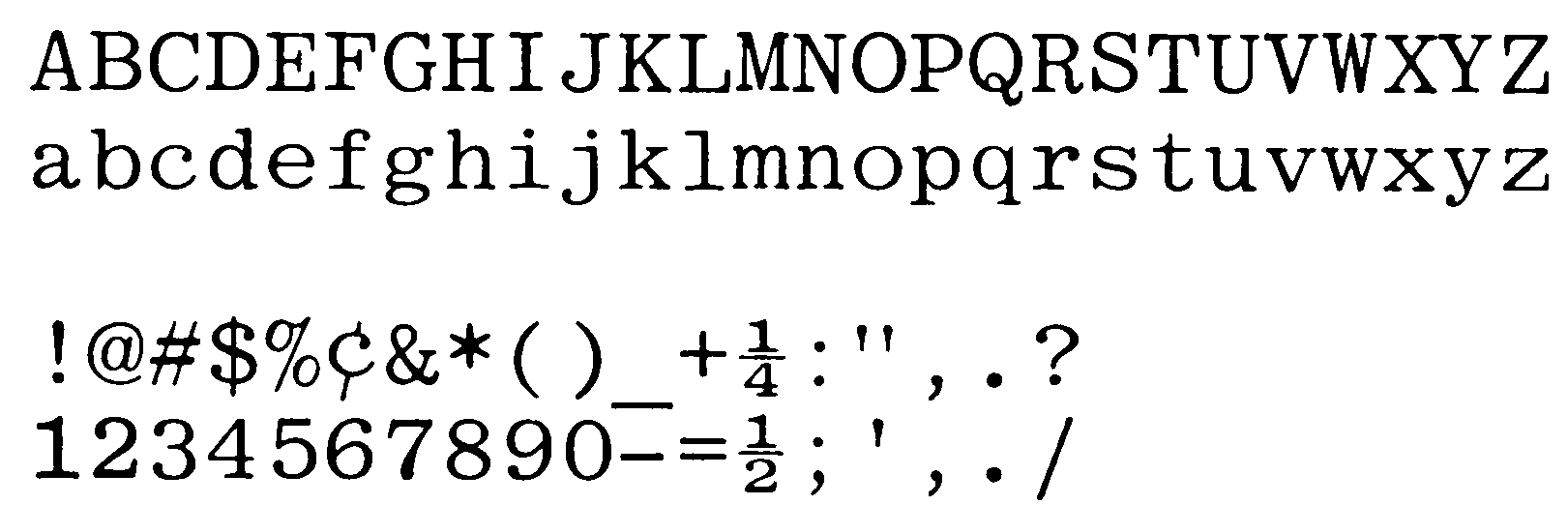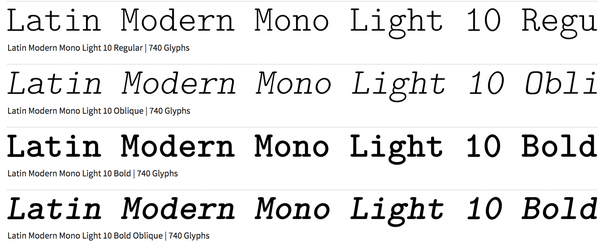
Bohemian typewriter by lukas krakora. Google docs typewriter fonts today, i am intending to talk about google docs typewriter fonts.
92 Inspiration Typewriter Fonts Google For Logo Design, Every font is free to download! Jmh typewriter by jorge morón.
Google docs typewriter fonts if, like me, you’ve been utilizing google slides and microsoft powerpoint, […] Imitate older times in your texts with our typewriter fonts for sober and clear works. To kick things off, we have postmark typewriter, a rugged font that looks like it was spat out from the oldest typewriter you can find. This light weight typewriter font is beautiful and classical.
typewrier font photo Google Search Fonts Pinterest Typewriters This font offers that traditional typewriter font aesthetic, with its slab serif design and uneven lines on its characters for that fresh ink effect.
With its bold lettering and elegant curves, abril fatface is a serif inspired by the tilting fonts popularized in british and french ads and posters from the 19th century. Get tips on what to look for when choosing fonts for your next elearning development project. Looking for old typewriter fonts? Typewriter is a classic mechanical typewriter font.
Type the way you want get your message across in. Legend of the giant penguin sea by cumberland fontworks. See 5 popular free google fonts. There you can sort and select the fonts you want to use in your document. Old typewriter font.
Jmh typewriter by jorge morón. To use a font in the extensis list, you first need to type your text, then select it. 172,546 downloads (101 yesterday) free for personal use. There you can sort and select the fonts you want to use in your document. Free typewriter fonts.
This font is perfect to create custom stamps, coffeetable books, invitations and many more. The casual look perfectly fits the vintage yard sale poster template. Bohemian typewriter by lukas krakora. This series looks at what google fonts is, and shares interesting examples and combinations of fonts that can take your project to the next level. Old Typewriter Font.
Hand typewriter € by imagex. Google input tools remembers your corrections and maintains a custom dictionary for new or uncommon words and names. Print fonts were designed for—you guessed it—printed materials. Click to find the best 31 free fonts in the old typewriter style. Google Tip Adding additional fonts to Google Docs SimCloud.
Hand typewriter € by imagex. The extnesis fonts font manager opens to the right of your document. 1001 free fonts offers the best selection of typewriter fonts for windows and macintosh. To kick things off, we have postmark typewriter, a rugged font that looks like it was spat out from the oldest typewriter you can find. What are the Typewriter Fonts & Typefaces? Mr & Mrs Vintage Typewriters.
Download ltc remington typewriter pro set from myfonts.com (opens in new tab) ltc remington typewriter pro is a beautiful classic lightweight typewriter font with a hint of class and unconventional characteristics in the letterforms. Kingsthings trypewriter recreates the uneven look of real typewriter text with an uneven baseline and slightly skewed letters. To kick things off, we have postmark typewriter, a rugged font that looks like it was spat out from the oldest typewriter you can find. 70+ best free and premium typewriter fonts. rusted typewriter font Google Search in 2020 Free font, Font.
This font is free for personal use. There are many scenarios where multiple weights—if not multiple styles—are not just desired, but essential. The extnesis fonts font manager opens to the right of your document. This series looks at what google fonts is, and shares interesting examples and combinations of fonts that can take your project to the next level. IBM Selectric and Selectric II Type Fonts.
Kingsthings trypewriter recreates the uneven look of real typewriter text with an uneven baseline and slightly skewed letters. Print fonts were designed for—you guessed it—printed materials. Would love to get it. The font was constructed 100% by hand. How to Change the Fonts of a Website and Preview Online.
Jmh typewriter by jorge morón. This font would be best suited for more creative designs; The uneven lettering is too casual for a more corporate design. Looking for old typewriter fonts? typewriter Threads Forum Tags.
Typewriter is a classic mechanical typewriter font. 172,667 downloads (121 yesterday) free for personal use. Zai adler 7 typewriter 1925 by tomasz skowronski. Download ltc remington typewriter pro set from myfonts.com (opens in new tab) ltc remington typewriter pro is a beautiful classic lightweight typewriter font with a hint of class and unconventional characteristics in the letterforms. What fonts convey sadness best? Quora.
Imitate older times in your texts with our typewriter fonts for sober and clear works. To use a font in the extensis list, you first need to type your text, then select it. Jmh typewriter by jorge morón. Google input tools remembers your corrections and maintains a custom dictionary for new or uncommon words and names.